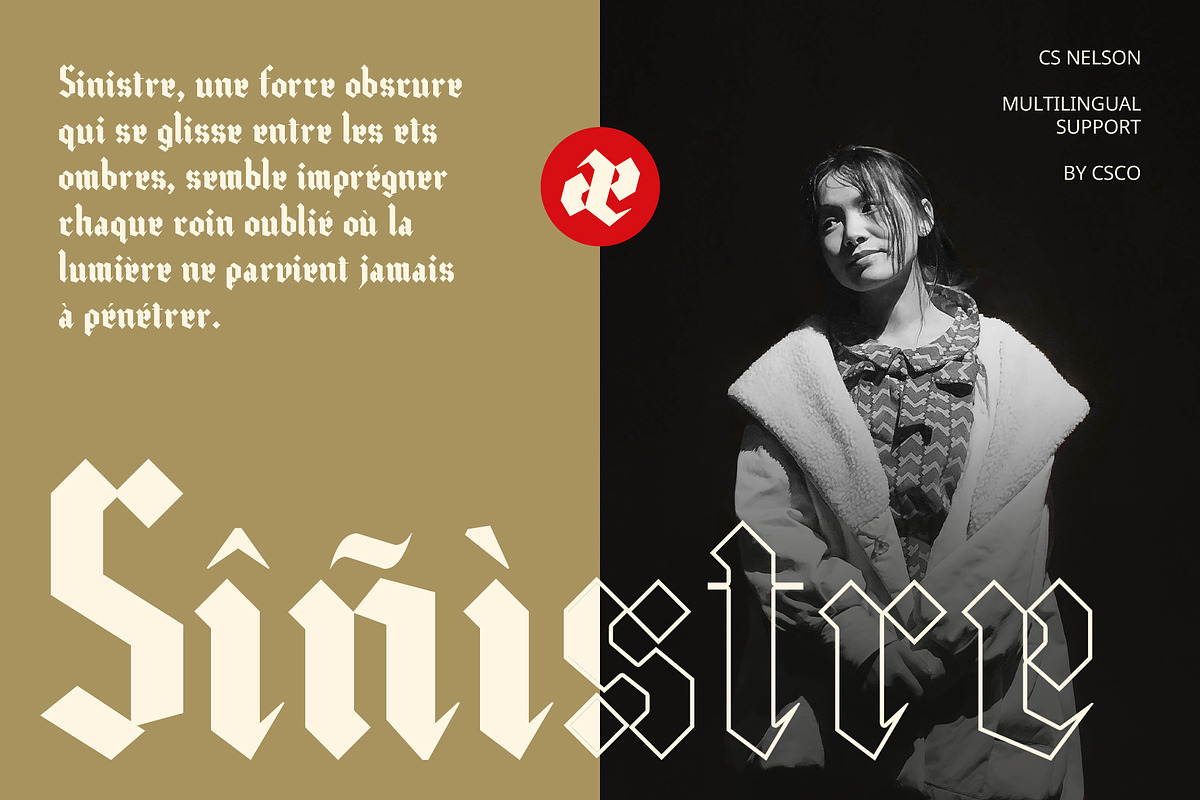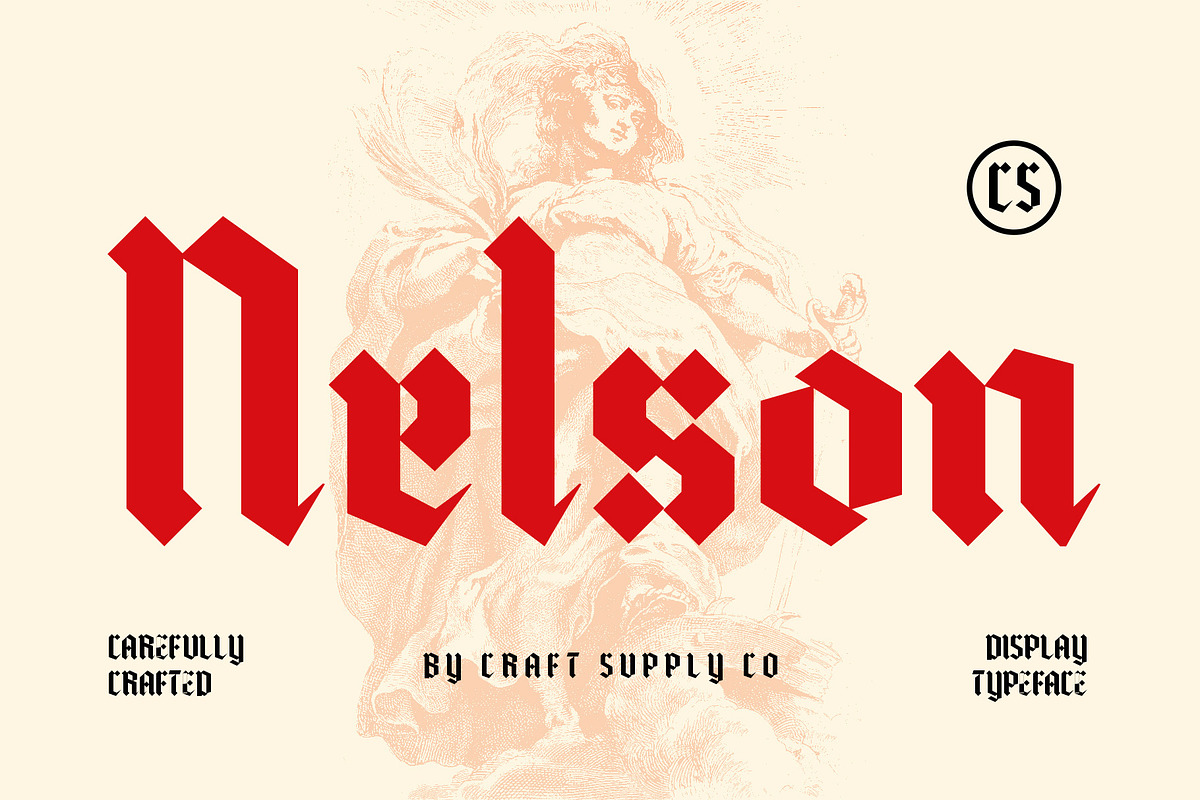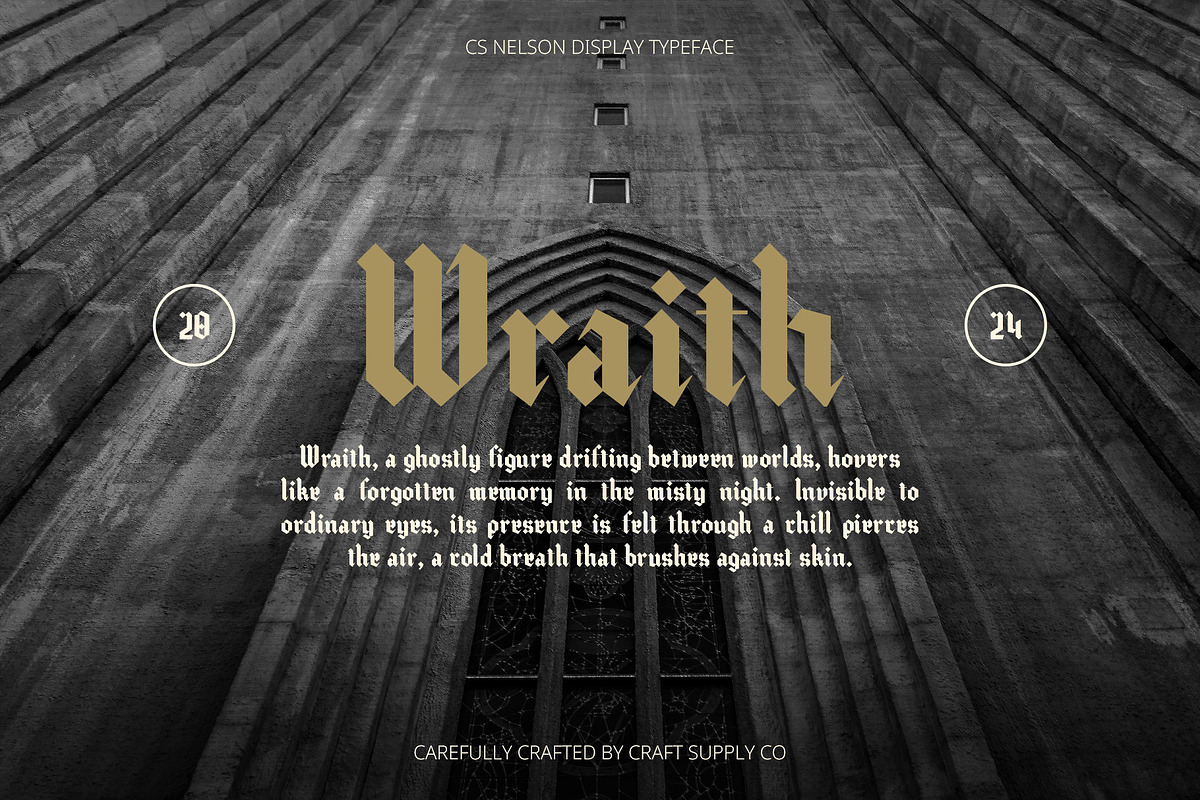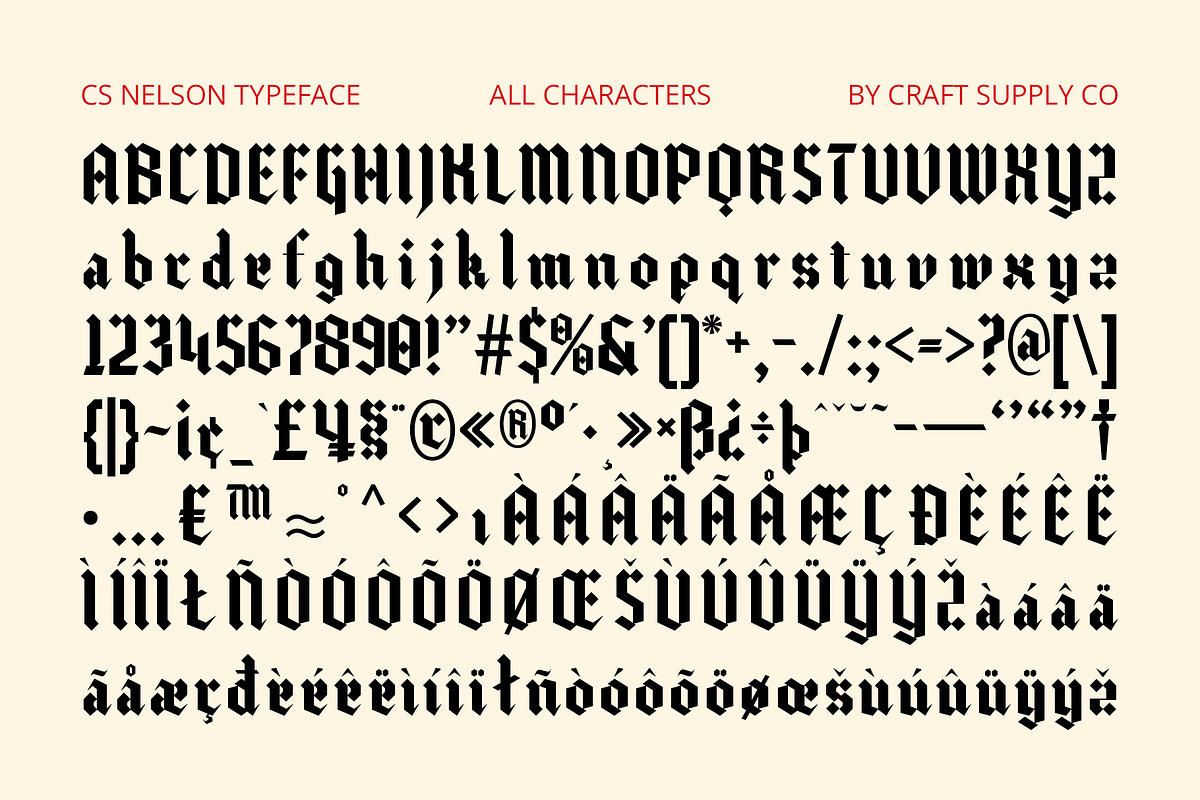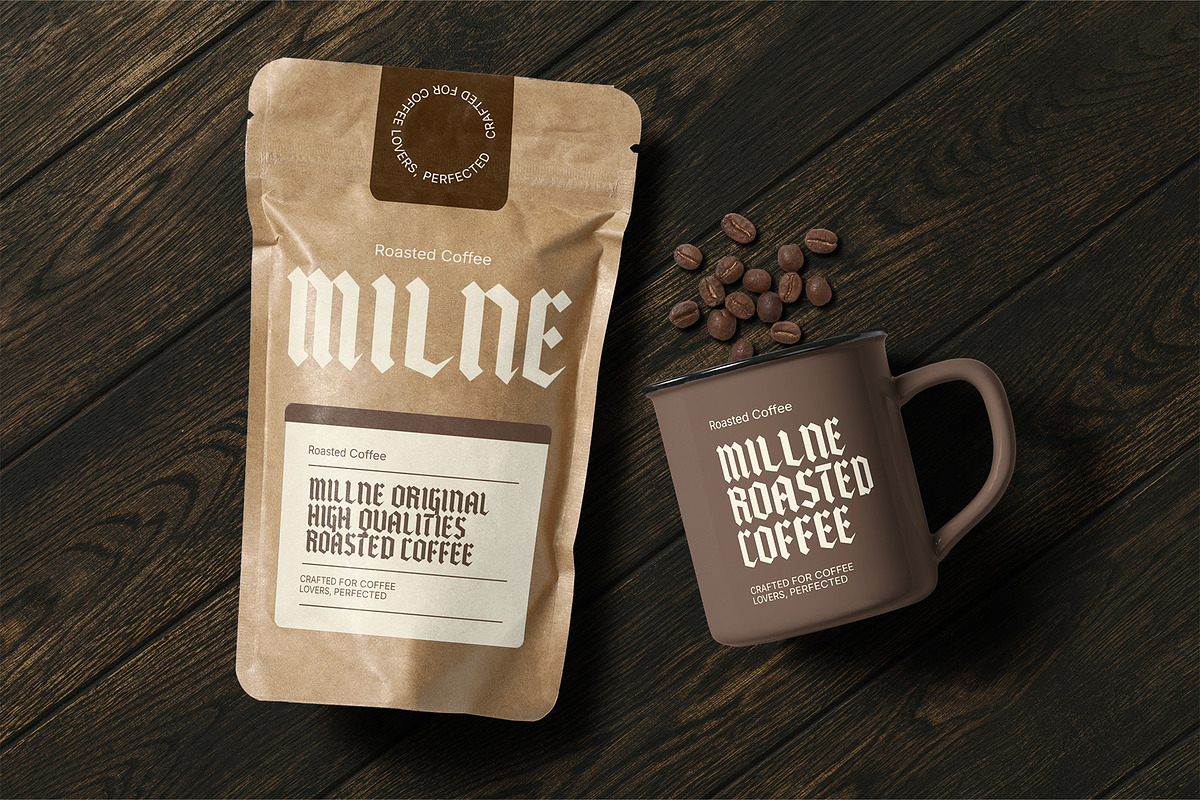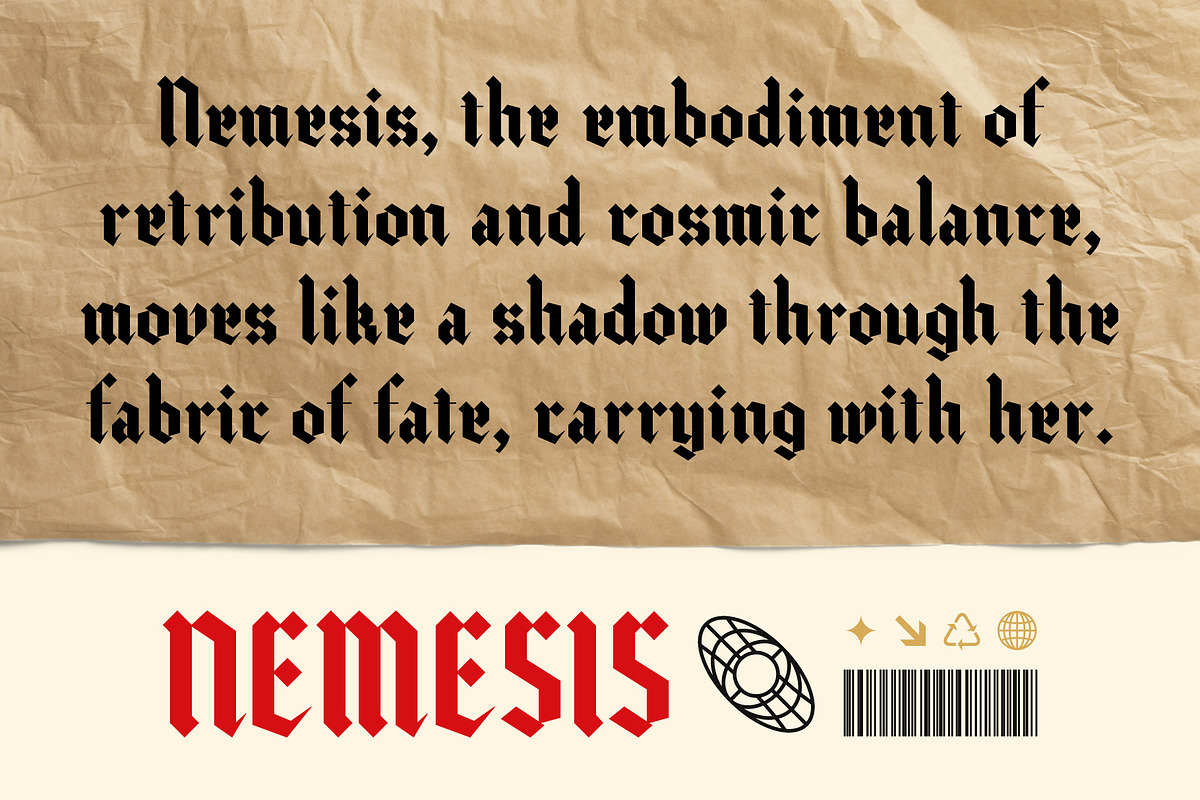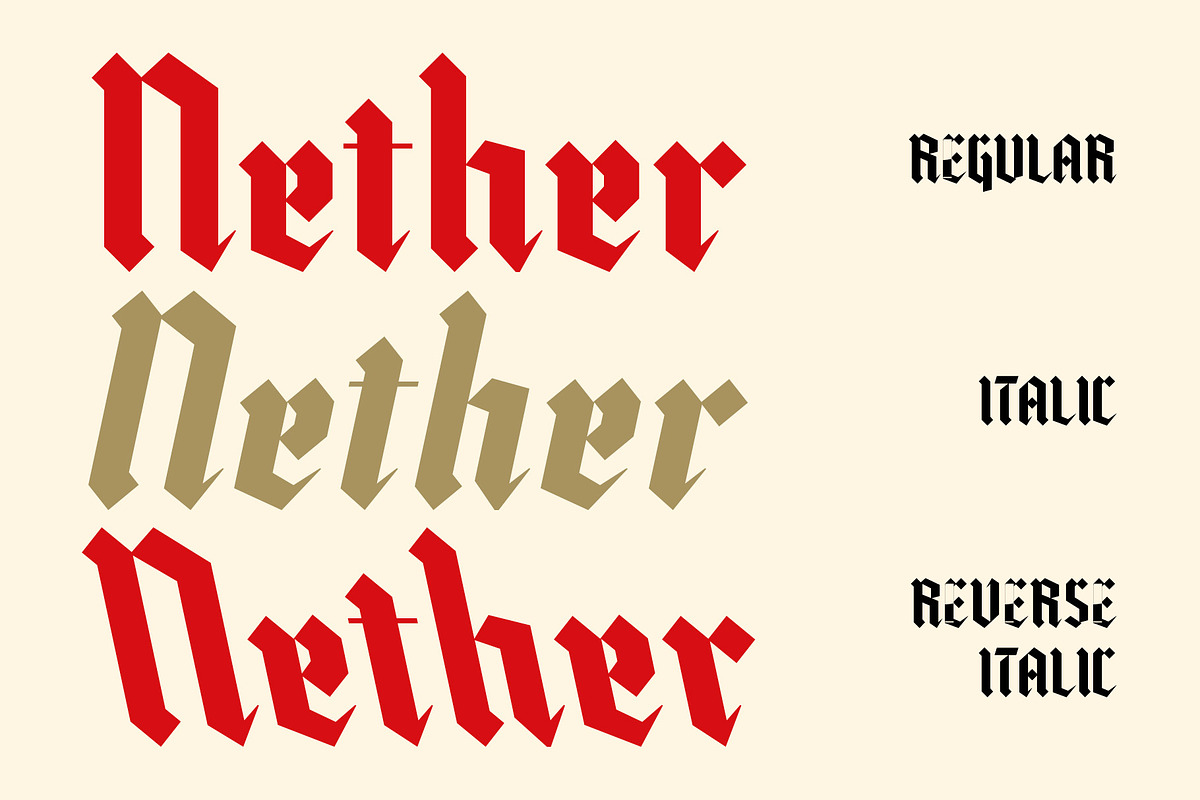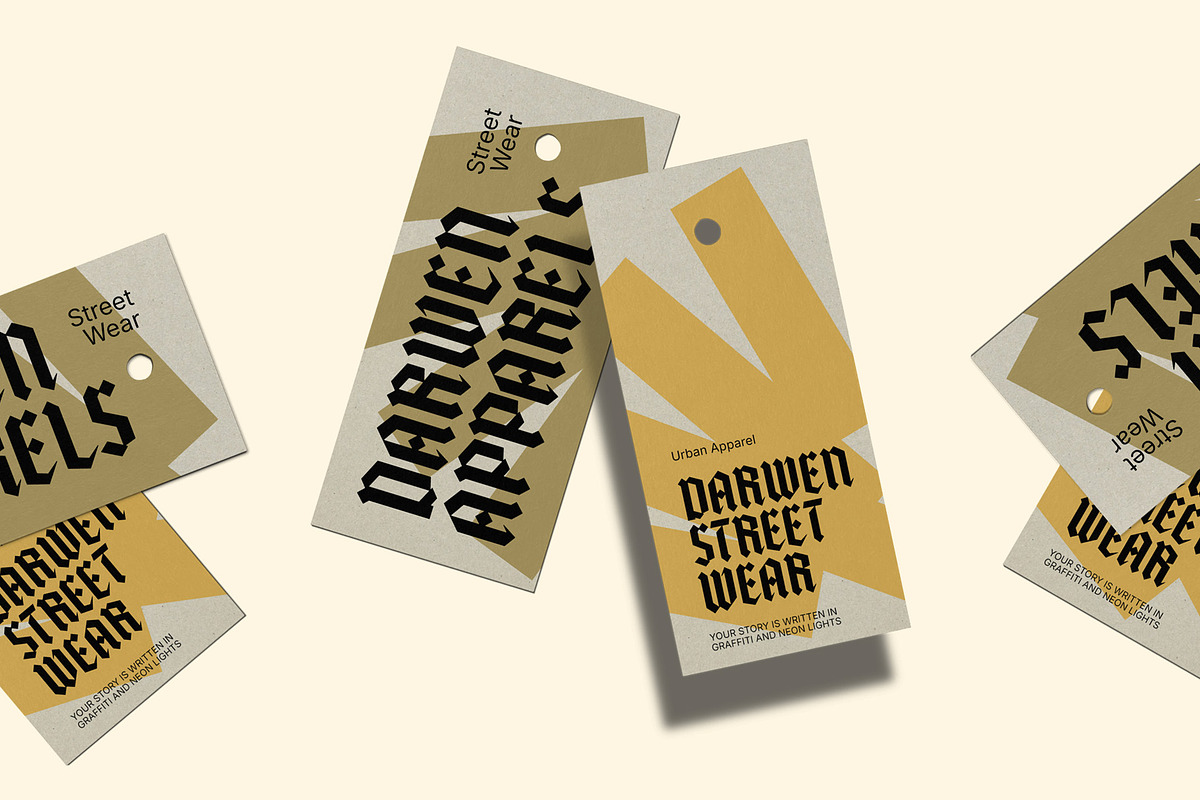
CS Nelson – Gothic Font
CS Nelson – Gothic Font: Drama and Elegance from a Bygone Era
Classic Gothic Display Design CS Nelson is a classic Gothic display font that draws inspiration from medieval and Victorian letterforms. With sharp, pointed edges and intricate detailing, this font captures the boldness and historic elegance of the Gothic style. Its strong vertical lines and ornate serifs create a striking, ornate appearance, making it perfect for designs that demand attention and visual impact.
Bold, Angular Shapes with Historical Elegance Featuring a blend of bold, angular shapes and historical flair, CS Nelson conveys a sense of power and timelessness. Its intricately designed letterforms evoke old-world charm and a dramatic presence, while still maintaining a modern clarity. Ideal for projects that seek to make a statement, this font excels in headlines, posters, and branding where an air of sophistication and intensity is essential.
Perfect for Dramatic, Impactful Designs CS Nelson is a standout choice for any design project that requires a sense of drama, authority, and elegance. Whether you’re working on theatrical posters, gothic-themed branding, or vintage-inspired designs, this font’s ornate details and strong presence ensure that your message resonates with power and sophistication. Its bold, expressive form makes it ideal for designs that need to capture attention and leave a lasting impression.
- CS Nelson Regular
- CS Nelson Italic
- CS Nelson Reverse Italic